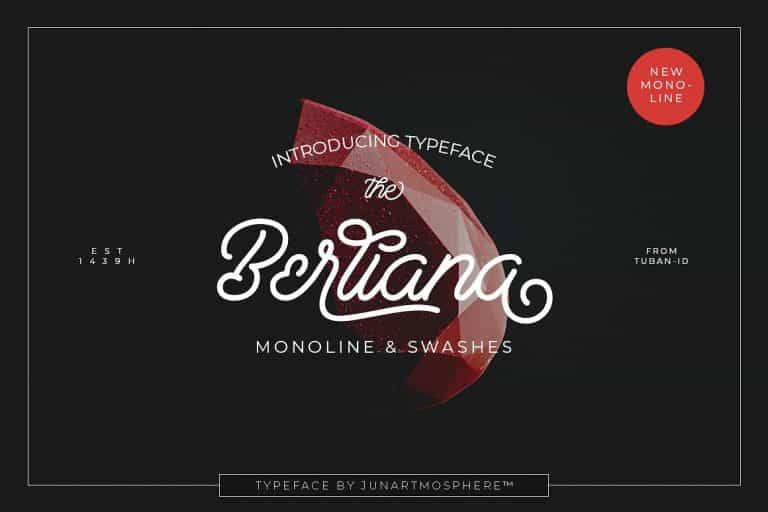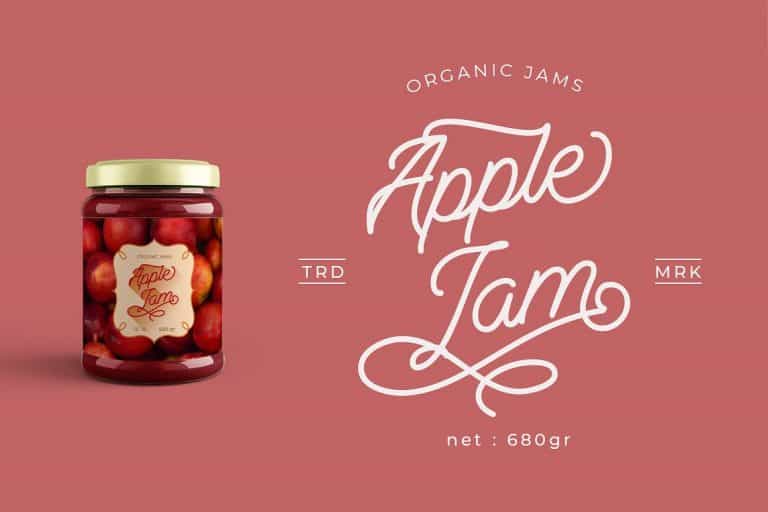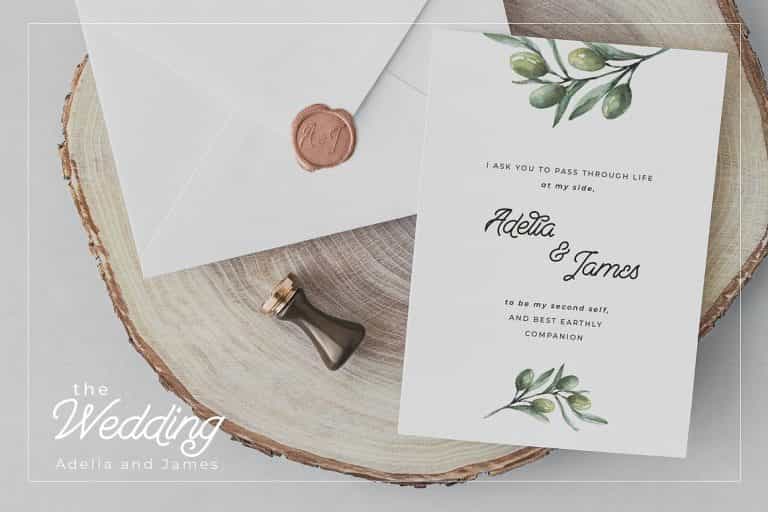
Berliana Monoline is a typeface was inspired by handwriting using markers. While the name is another word from Diamonds, namely jewelry has worn by many women in the world. Diamond jewelry is so expensive and full of luxury. So, in regards to diamonds, this font was created to present the luxury of very beautiful diamonds.